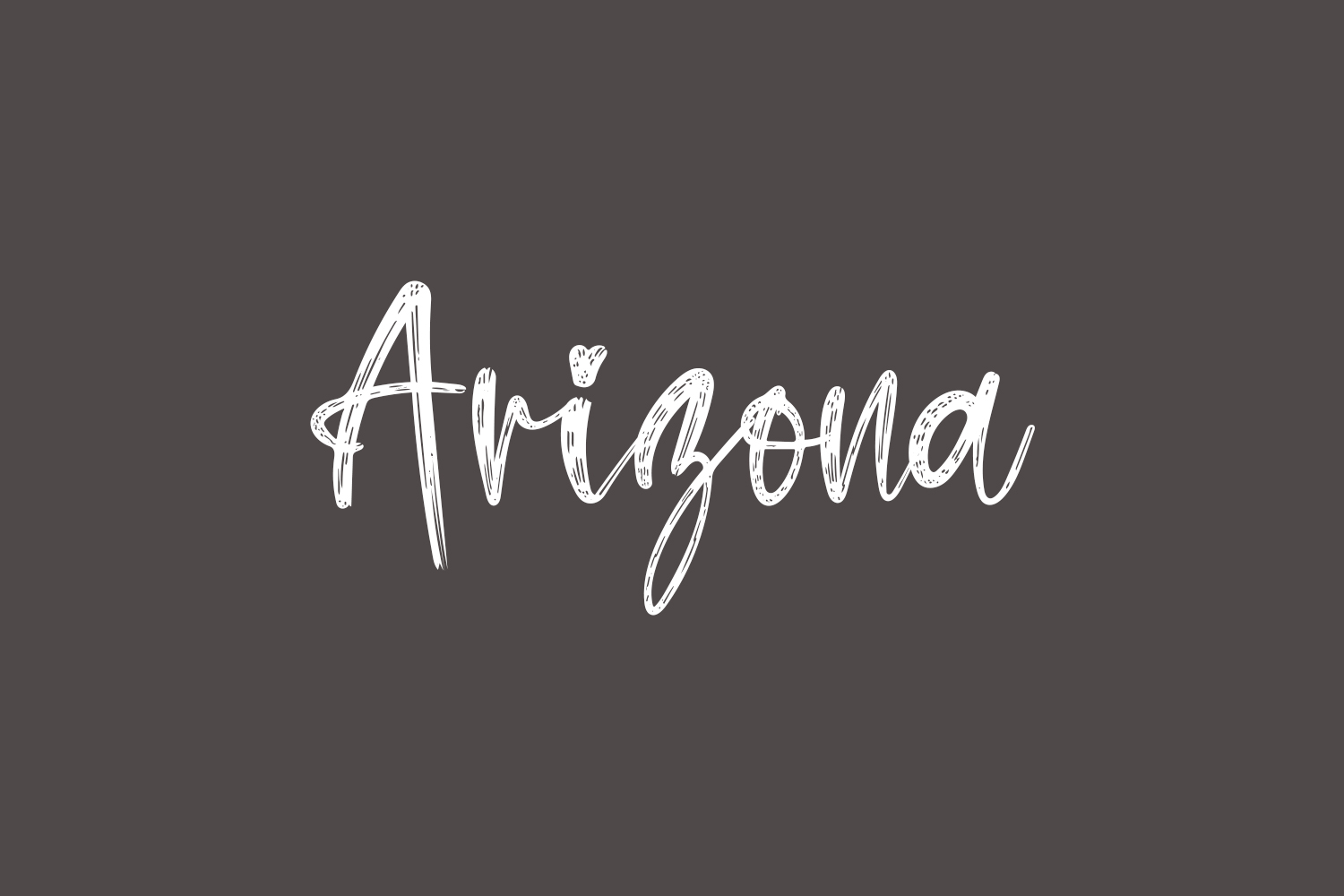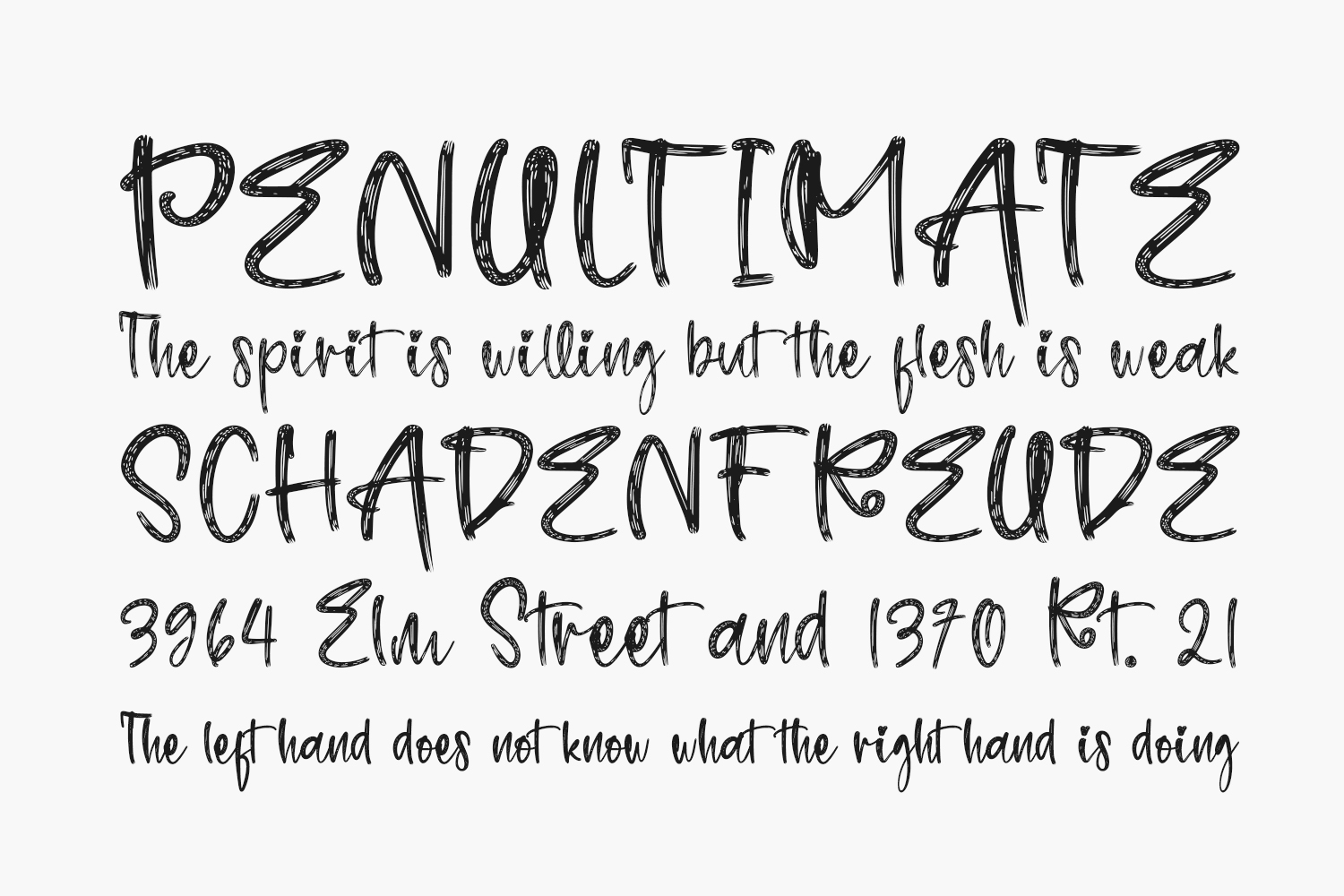
Arizona Free Font is a roughly textured and casual-looking handwritten font. Whether you use it for quotes, titles, brand names, book covers, posters, or just any creation that requires a delicate vibe, this font is a great choice.